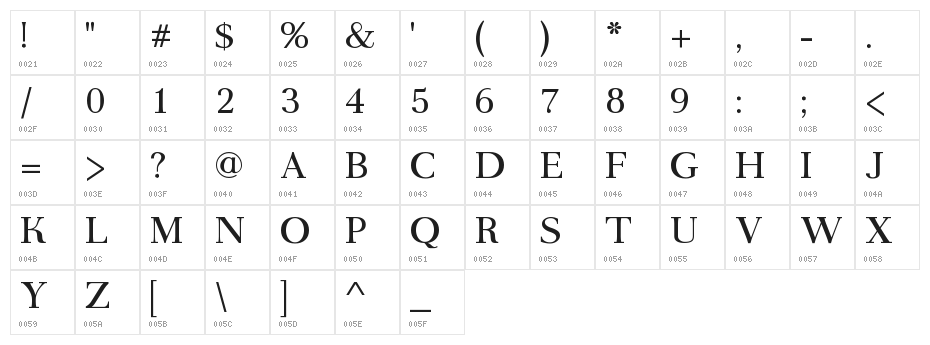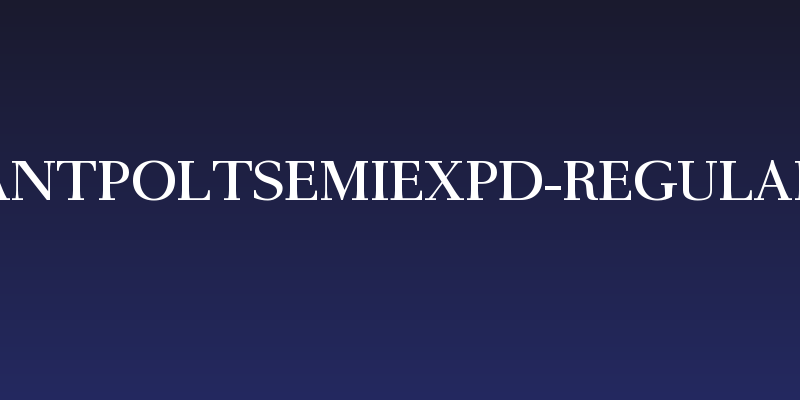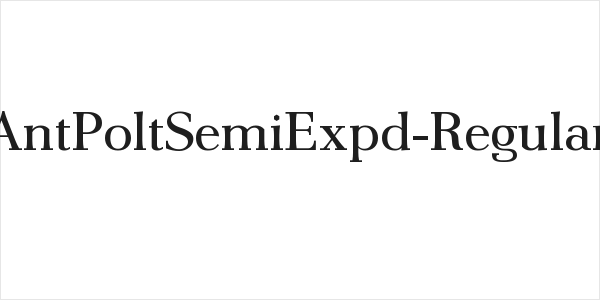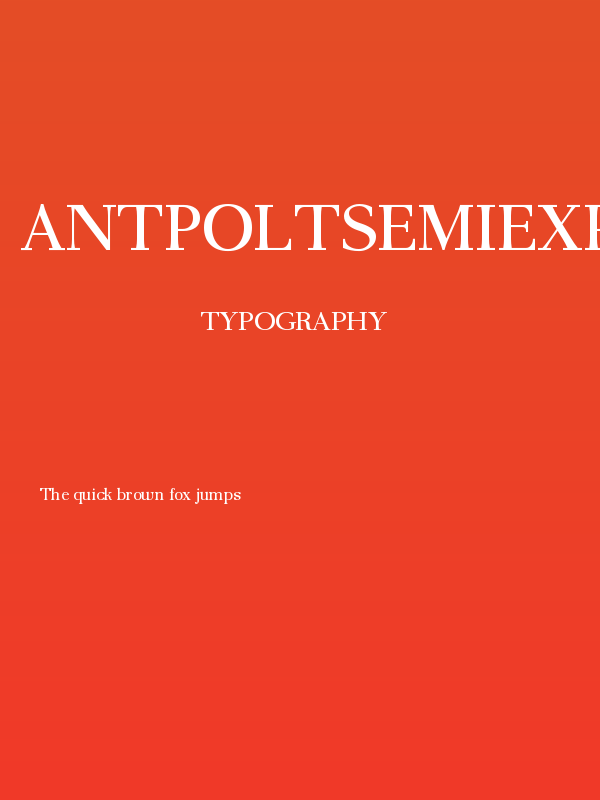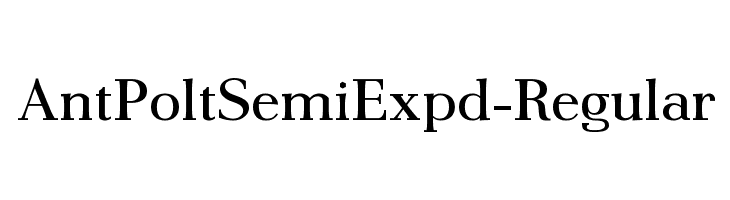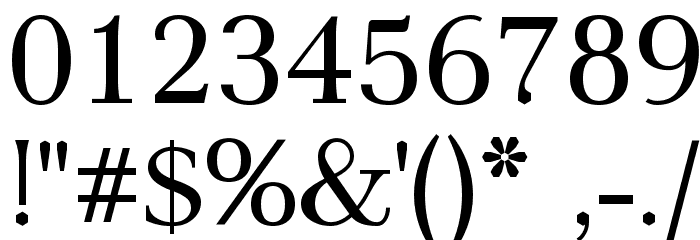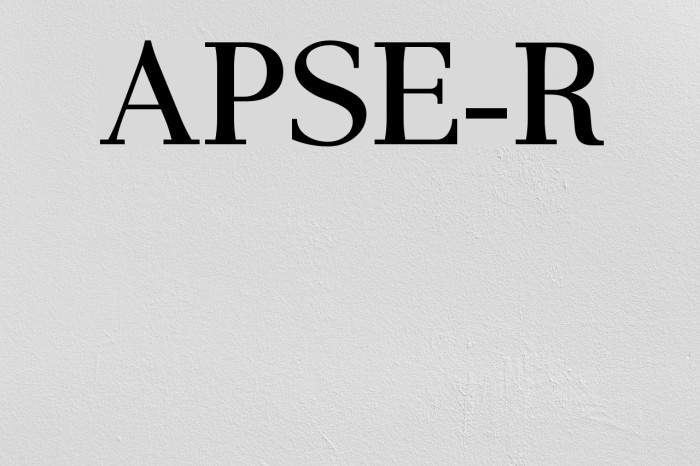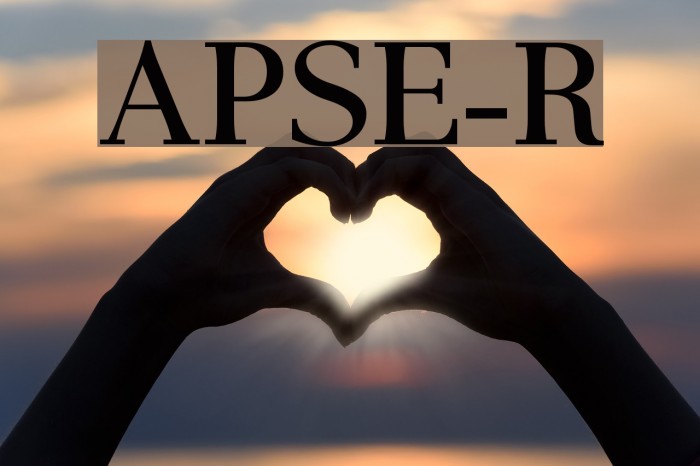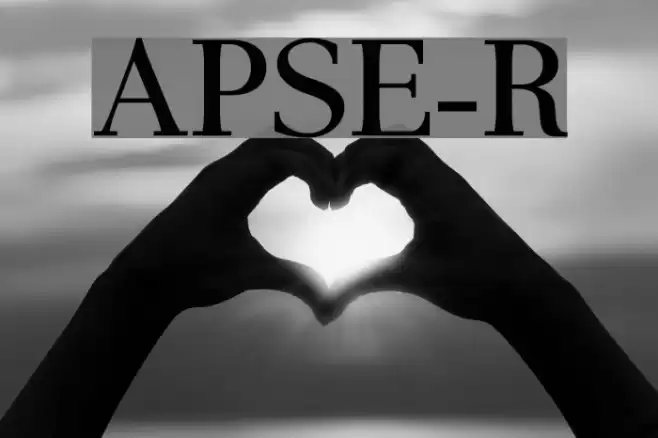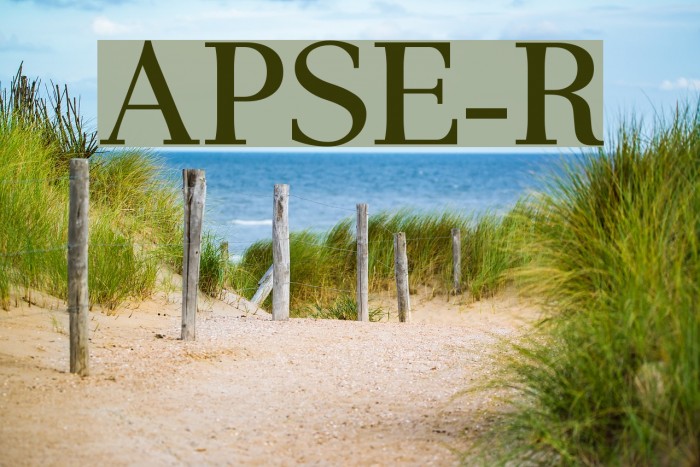
AntPoltSemiExpd-Regular Font
AntPoltSemiExpd-Regular Description
This font exhibits a classic serif style with a modern twist, characterized by semi-expanded letterforms that provide a sense of openness and readability. The uppercase letters are bold and authoritative, while the lowercase letters maintain a balanced and elegant appearance. The numerals are clear and distinct, making them suitable for both display and text purposes. Special characters are well-defined, ensuring versatility in various design contexts. The overall design is sophisticated, making it ideal for projects that require a touch of elegance and professionalism.
| Width | Expanded |
| Overall Style | Classic |
| Use Case | Headlines, Body text, Logos |
| Proposed Projects | Ideal for editorial design, book covers, formal invitations, and branding projects that require a sophisticated and professional look. |